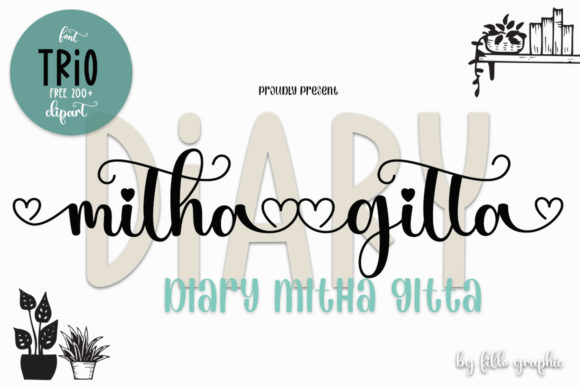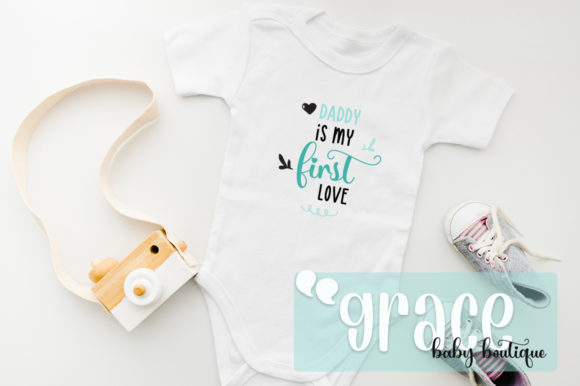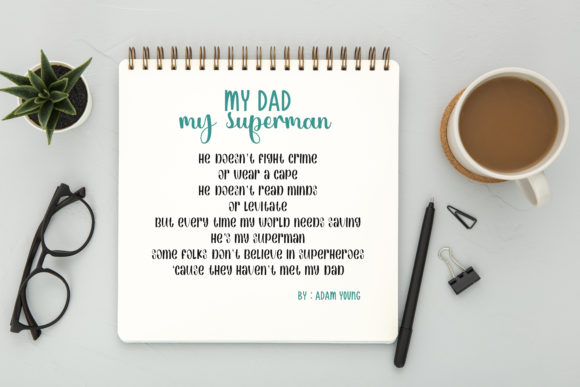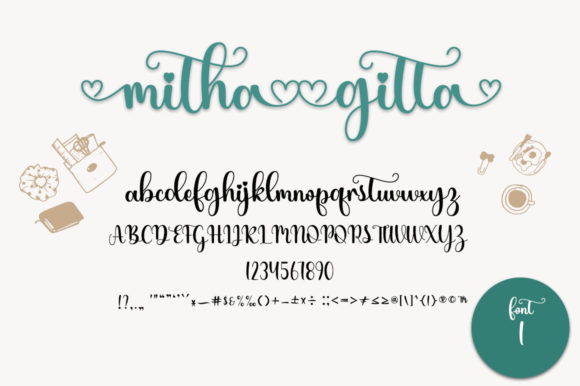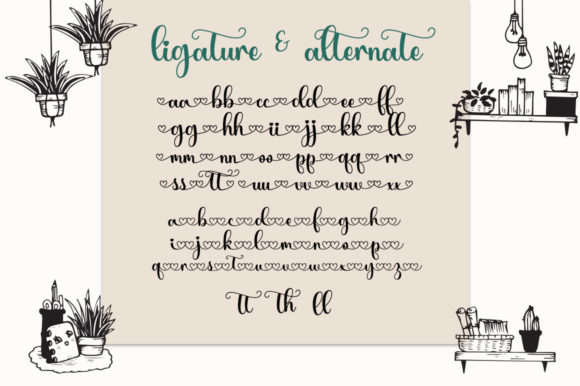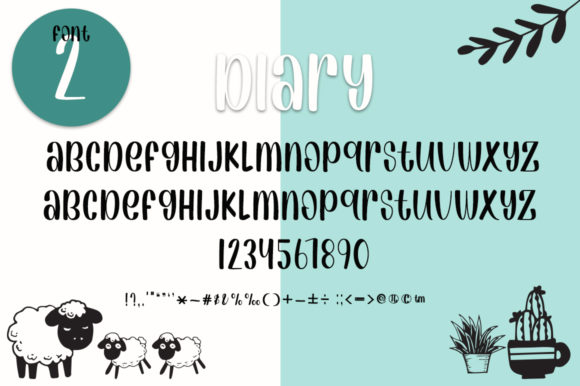
Diary Mithagitta Font
Diary Mithagitta is an enchanting handwritten font. This versatile script font has a wide spectrum of applications ranging from greeting cards to headlines and is guaranteed to add a romantic feel to your next project.
This font is PUA encoded which means you can access all of the beautiful glyphs and swashes with ease!